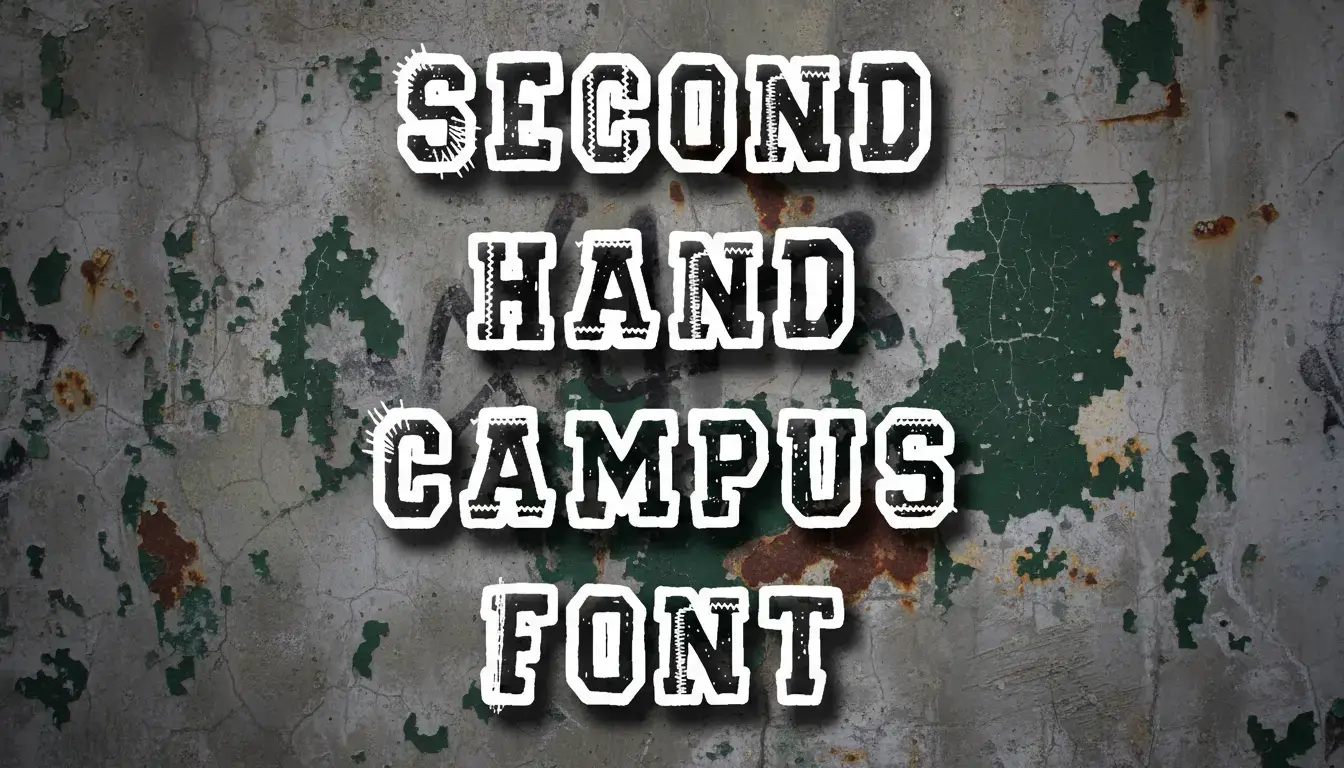
Second Hand Campus Font
Second Hand Campus Font Preview
Second Hand Campus is a fancy font created by IMAGEX. Bold and full of character, it's built to stand out rather than blend in. You can download it for free and test it with your own words in the preview above.
With complete upper and lowercase letters and all ten digits, Second Hand Campus is ready for real wording, not just a single headline. Common punctuation such as &, !, ? and @ is included as well. It also has the accented letters you need for Spanish, French, German, Portuguese and Italian.
Think of Second Hand Campus for posters, logos and eye-catching headlines. Use it for one standout word or headline and let simpler fonts handle the rest.
Yes. Second Hand Campus includes the accented letters needed for Spanish, French, German, Portuguese and Italian, so it works for more than just English.